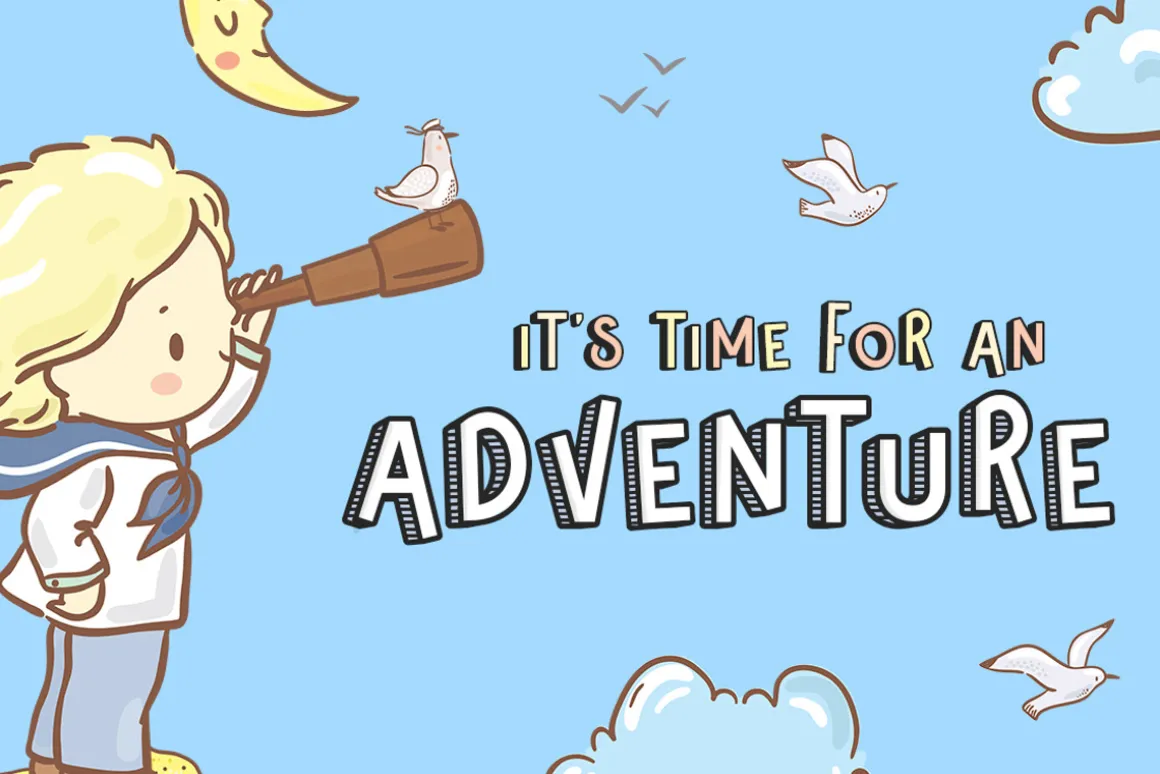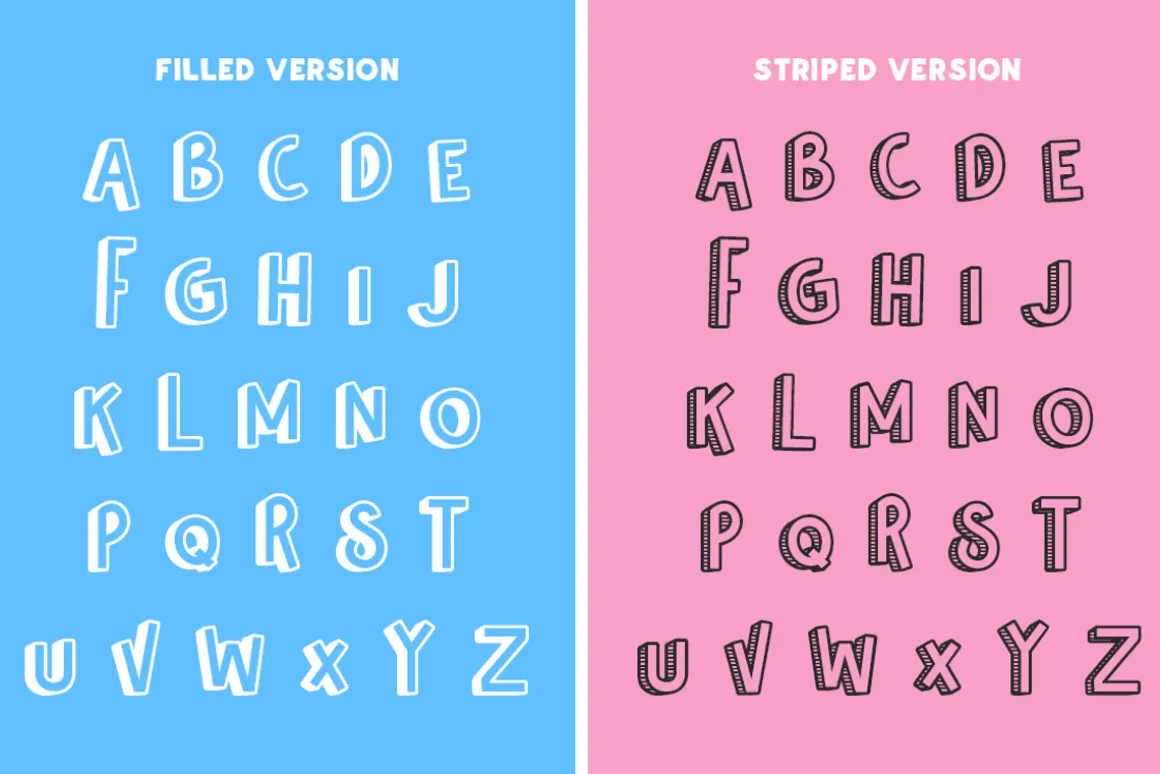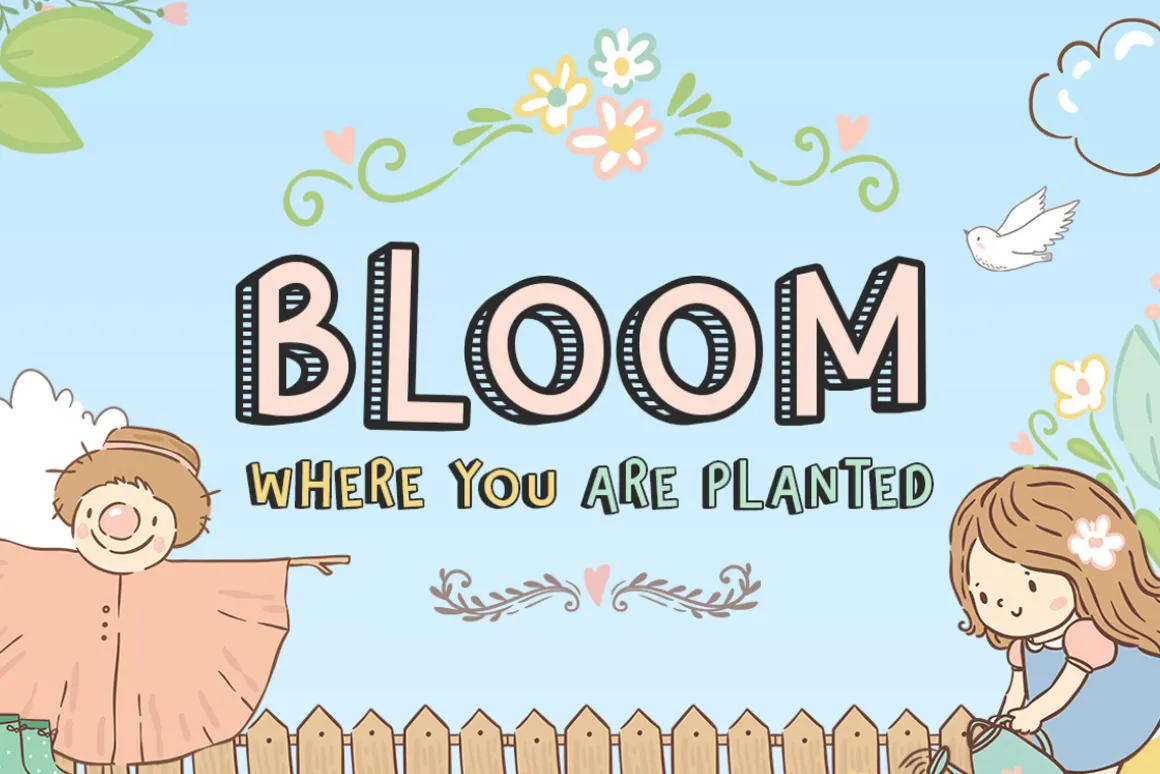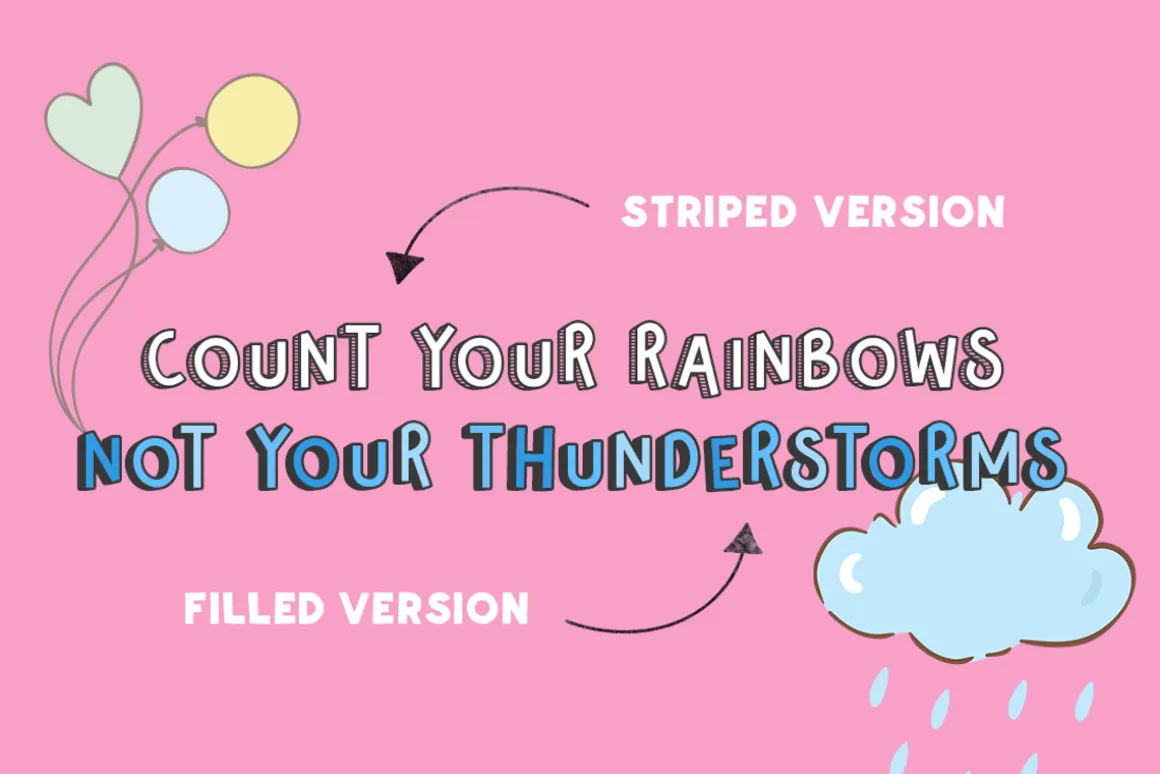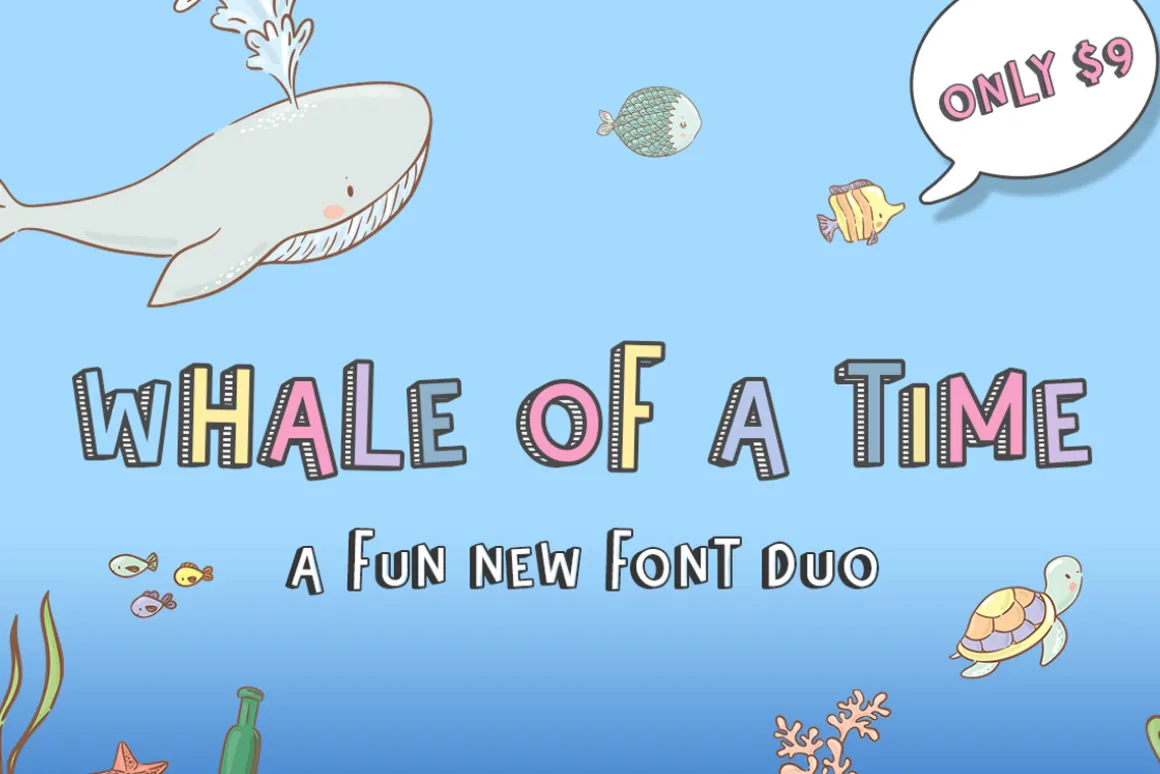
Here it is, the new font duo you didn’t know you’ve been looking for! Whale of a Time will compliment your collection of fonts with its playful characters and cute theme. The duo consists of a filled and striped version for you to mix and match however you like! They also play well with others, especially scripts!